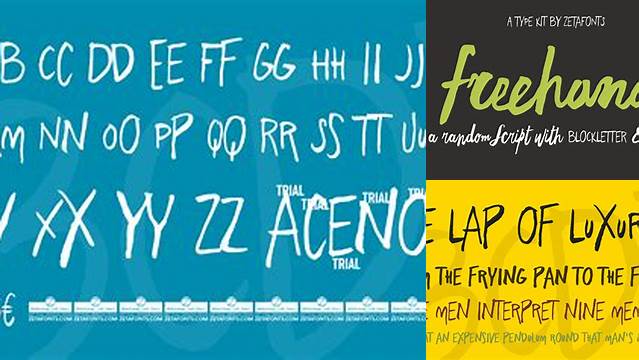
Freehand Font Alternatives: Top Similar Fonts For Design
Freehand fonts, with their distinctive, flowing, and organic letterforms, evoke a sense of creativity, individuality, and personal touch. These fonts often mimic the natural strokes of handwriting or calligraphy, making them ideal for designs that require a humanistic and approachable feel. If you're looking for fonts that capture the essence of Freehand, whether for branding, invitations, or digital art, you've come to the right place. In this comprehensive guide, we'll explore a variety of typefaces that share Freehand's unique characteristics, helping you find the perfect font for your next project.
Understanding the Appeal of Freehand Fonts
Before diving into specific font recommendations, it's essential to understand what makes Freehand fonts so appealing. These fonts stand out due to their:
- Natural and organic appearance: Freehand fonts often feature irregular lines, varying stroke weights, and a hand-drawn aesthetic, giving them a personal and approachable feel.
- Unique character: Each letterform in a Freehand font possesses its own distinct personality, making the overall design more engaging and memorable.
- Versatility: Freehand fonts can be used in a variety of contexts, from elegant invitations to casual blog headers, depending on the specific style and weight.
- Expressiveness: These fonts are excellent for conveying emotions and adding a touch of artistry to your designs.
When selecting a Freehand font, consider the overall tone and message you want to communicate. Do you need something elegant and refined, or something more playful and casual? Understanding your needs will help you narrow down the options and find the perfect fit.
Categories of Fonts Similar to Freehand
To better navigate the world of Freehand-inspired fonts, let's break them down into categories:
1. Script Fonts
Script fonts are perhaps the closest relatives to Freehand fonts. They emulate the flowing strokes of handwriting and calligraphy, making them ideal for projects that require a personal touch. When choosing a script font, consider the level of formality you need. Some script fonts are elegant and formal, while others are more casual and playful.
Examples of Script Fonts:
- Brush Script MT: A classic script font with bold, flowing strokes, perfect for headlines and display text.
- Great Vibes: An elegant script font with connecting letters, ideal for wedding invitations and formal designs.
- Pacifico: A casual and friendly script font with rounded letterforms, suitable for logos and blog headers.
- Lobster: A bold and quirky script font with unique letterforms, great for adding a touch of personality to your designs.
- Playlist Script: This font stands out with its vibrant, energetic strokes, making it a perfect choice for projects that require a youthful and dynamic feel. Its casual yet legible design makes it versatile for both digital and print applications. The unique flow of the characters adds a personal touch, ideal for branding, social media graphics, and invitations where you want to convey warmth and creativity. Playlist Script's distinct personality ensures your message is delivered with style and flair.
2. Handwritten Fonts
Handwritten fonts aim to replicate the look of natural handwriting, often with a slightly imperfect and informal appearance. These fonts are perfect for adding a personal and relatable touch to your designs. They work well for notes, letters, and any project where you want to convey authenticity.
Examples of Handwritten Fonts:
- Permanent Marker: A bold and messy handwritten font that looks like it was written with a marker, perfect for adding a raw and edgy feel.
- Coming Soon: A casual and friendly handwritten font with rounded letterforms, ideal for informal designs and blog posts.
- Amatic SC: A narrow and condensed handwritten font that's great for headlines and titles.
- Architects Daughter: A simple and legible handwritten font that's perfect for body text and longer paragraphs.
- Indie Flower*: This font embodies the essence of handwritten authenticity, offering a playful yet readable style. Its slightly irregular strokes and casual demeanor make it an excellent choice for designs aiming to convey a personal touch. Indie Flower works wonders in blog posts, children's books, and informal invitations, bringing a sense of warmth and approachability to any project. Its unique character ensures your message feels genuine and heartfelt.
3. Calligraphy Fonts
Calligraphy fonts are inspired by the art of calligraphy, featuring elegant and flowing letterforms with varying stroke weights. These fonts are ideal for projects that require a touch of sophistication and refinement, such as wedding invitations, certificates, and formal announcements.
Examples of Calligraphy Fonts:
- Kalam: A flowing and elegant calligraphy font with a traditional feel, perfect for formal events and designs.
- Freehand 521: A classic calligraphy font with a delicate and refined appearance, ideal for invitations and stationery.
Freehand fonts are a fantastic way to add a personal, creative, and humanistic touch to your designs. Whether you're working on a branding project, an invitation, or a digital artwork, there's a Freehand-inspired font out there that can help you achieve your vision. By understanding the different categories of Freehand fonts, considering the factors that influence font choice, and following the tips for effective use, you can leverage these expressive typefaces to create stunning and memorable designs. So go ahead, explore the world of Freehand fonts, and let your creativity flow, guys!